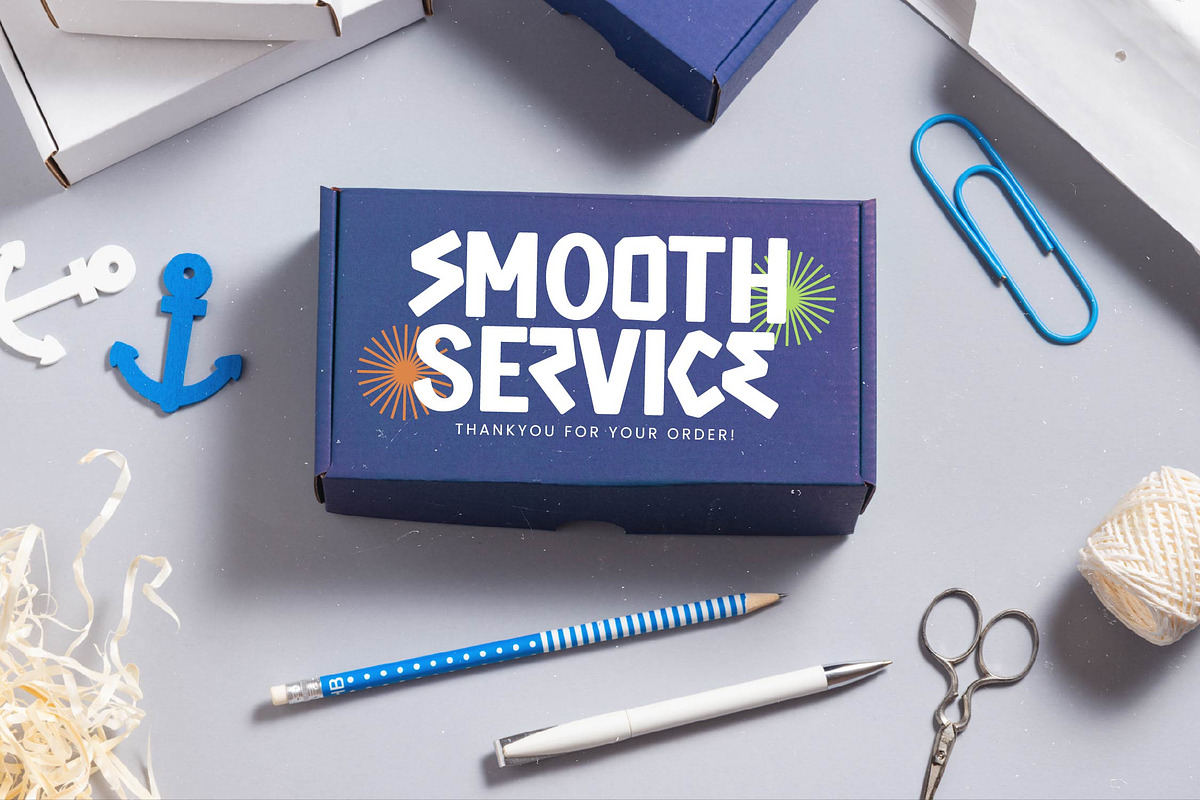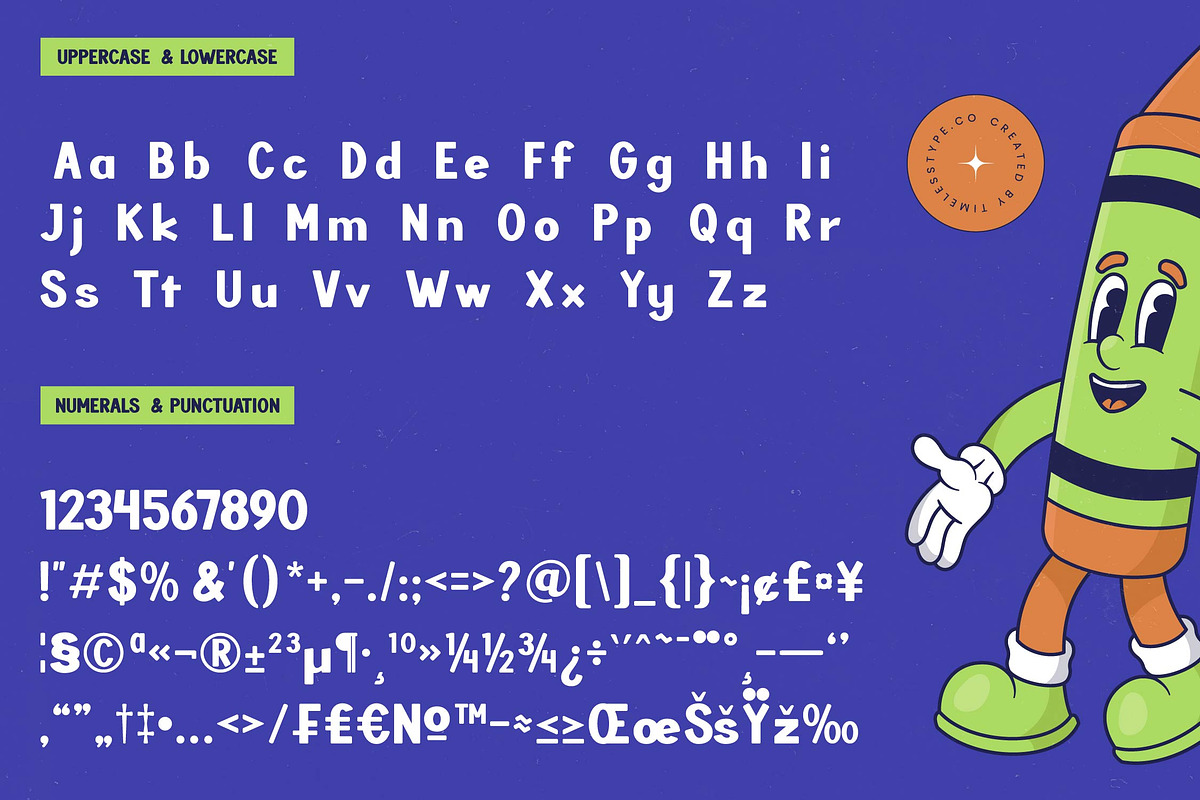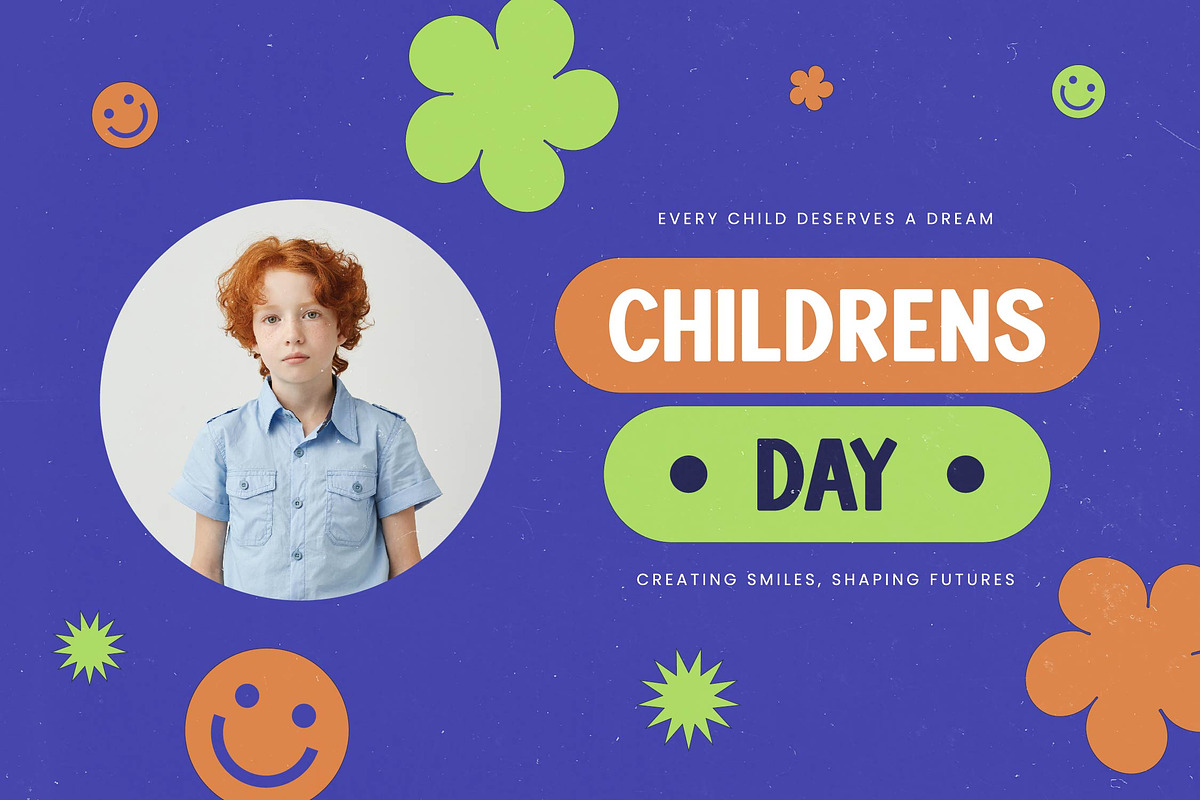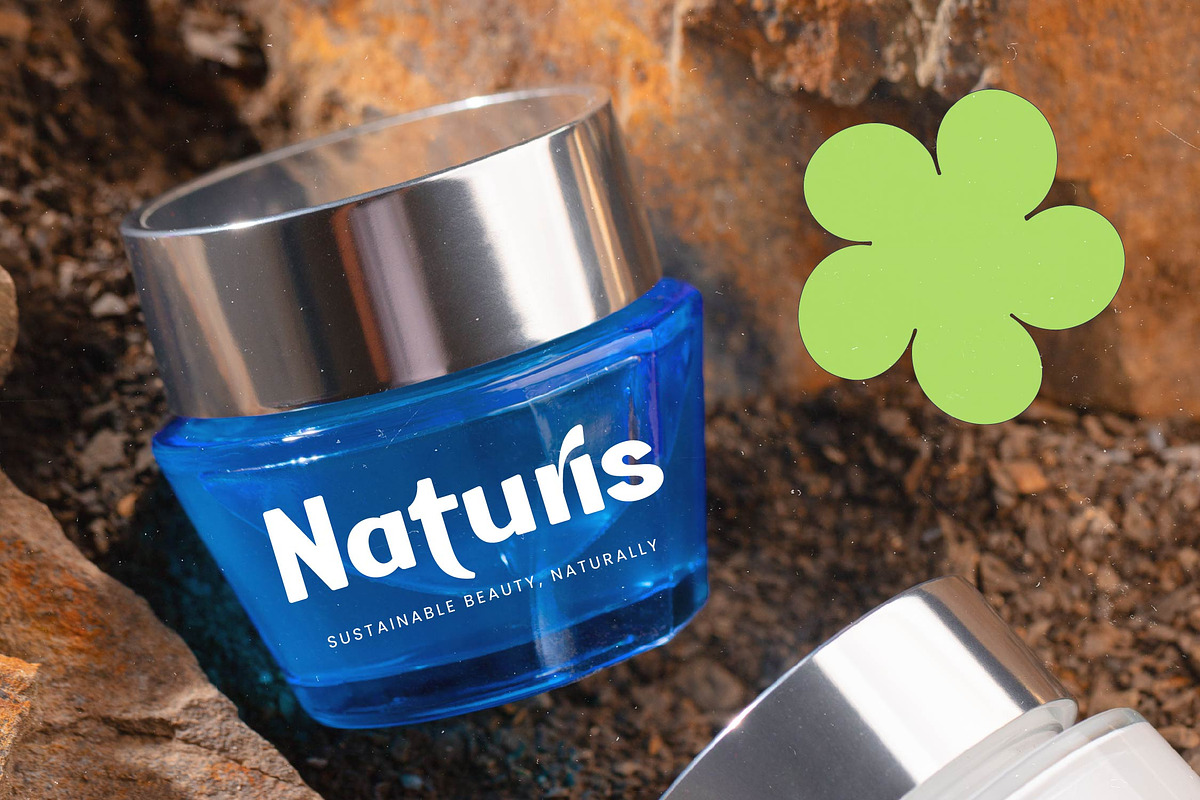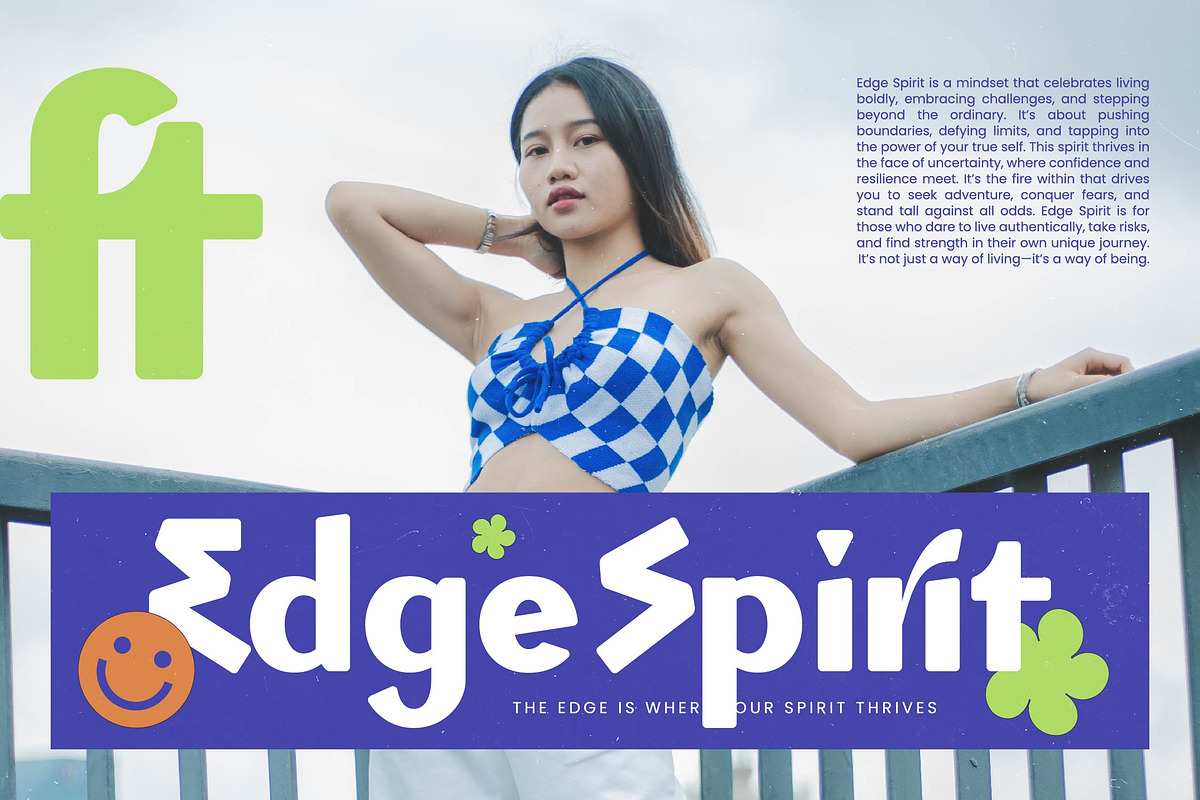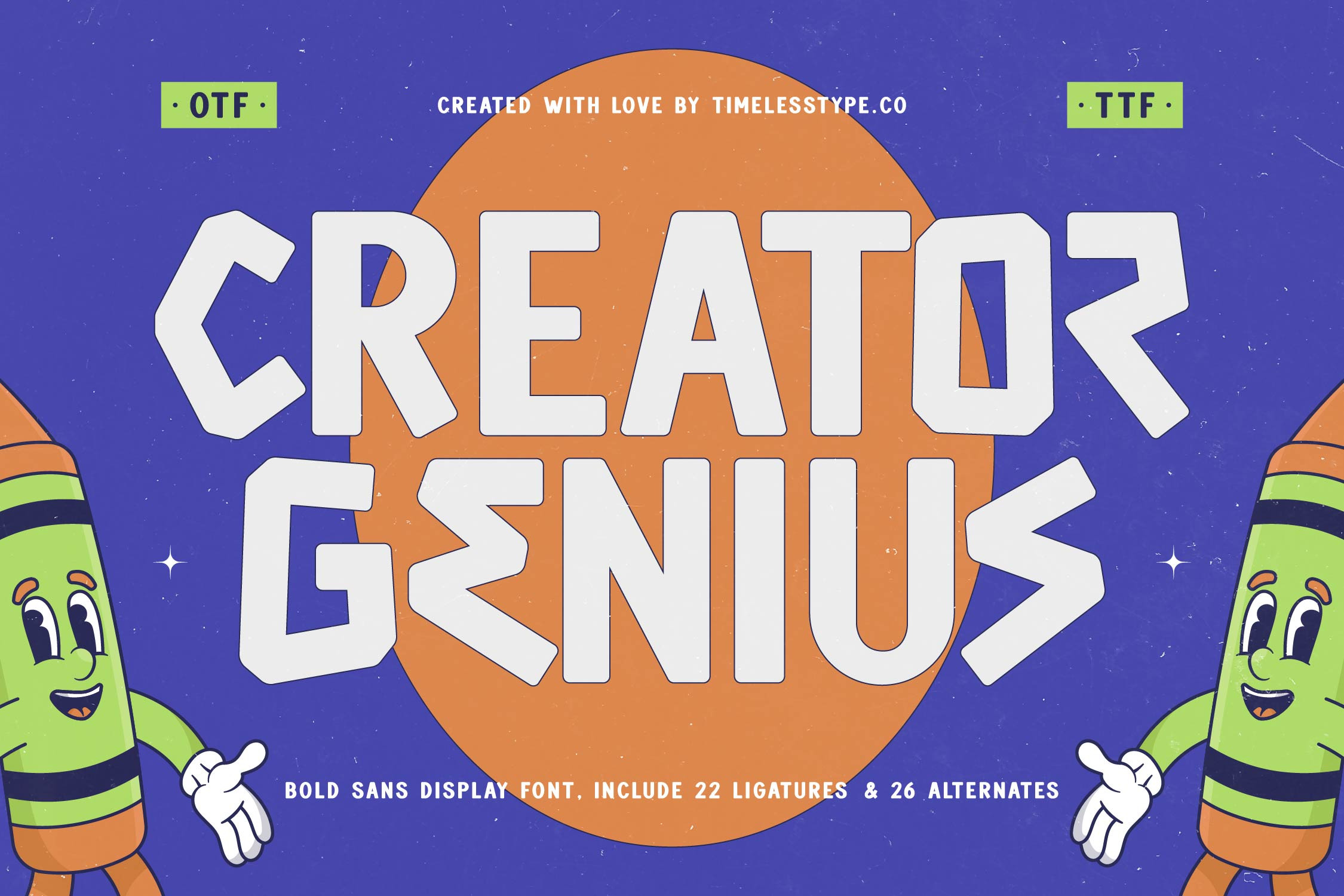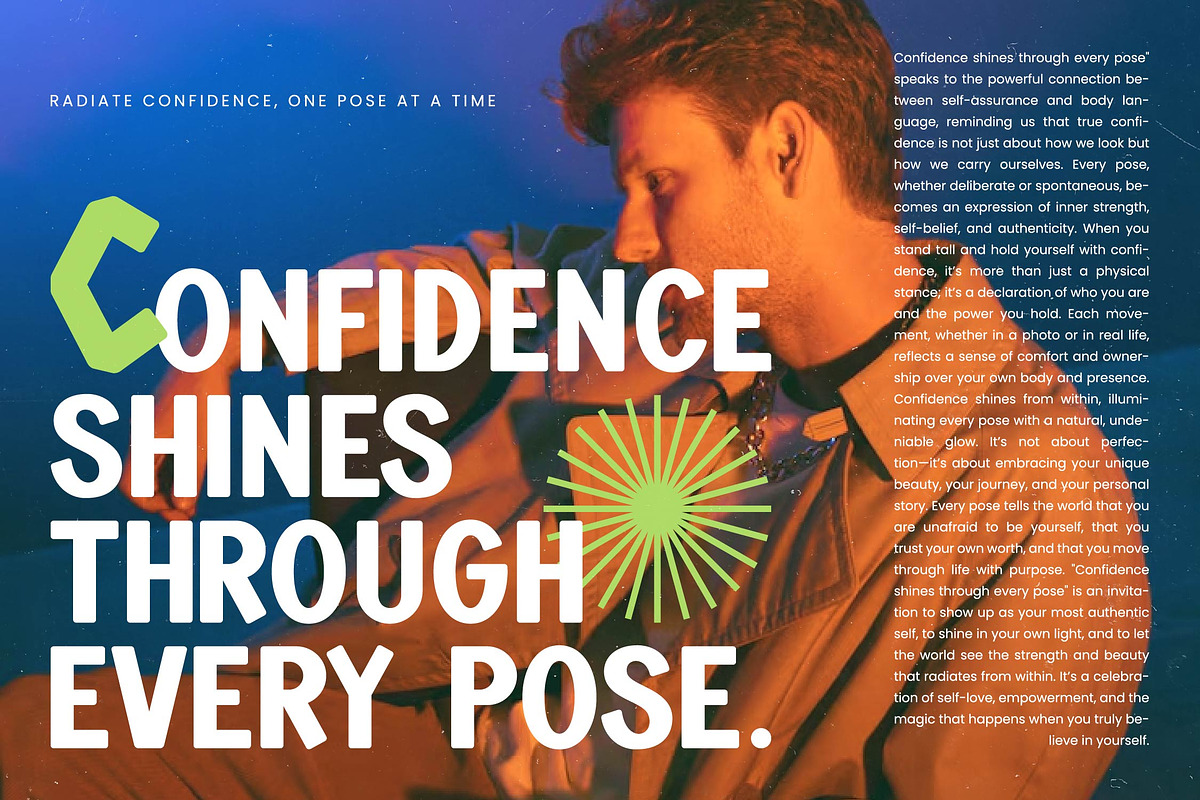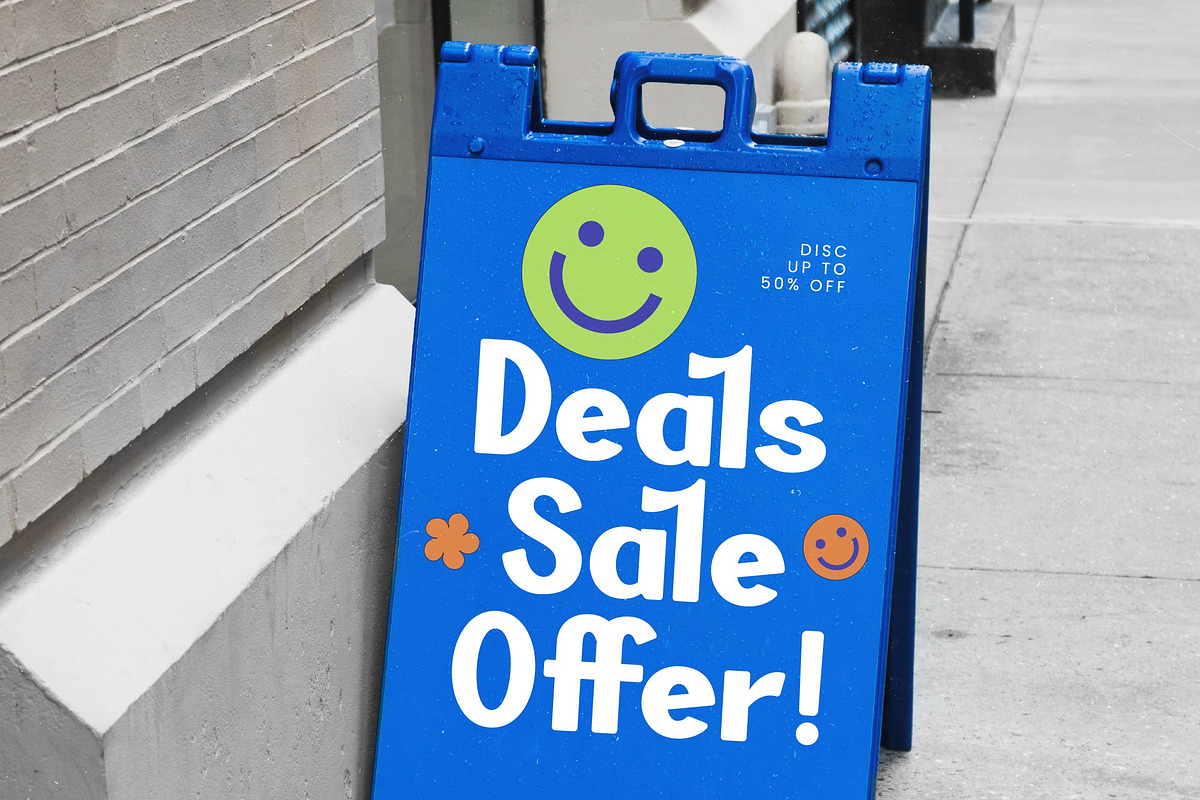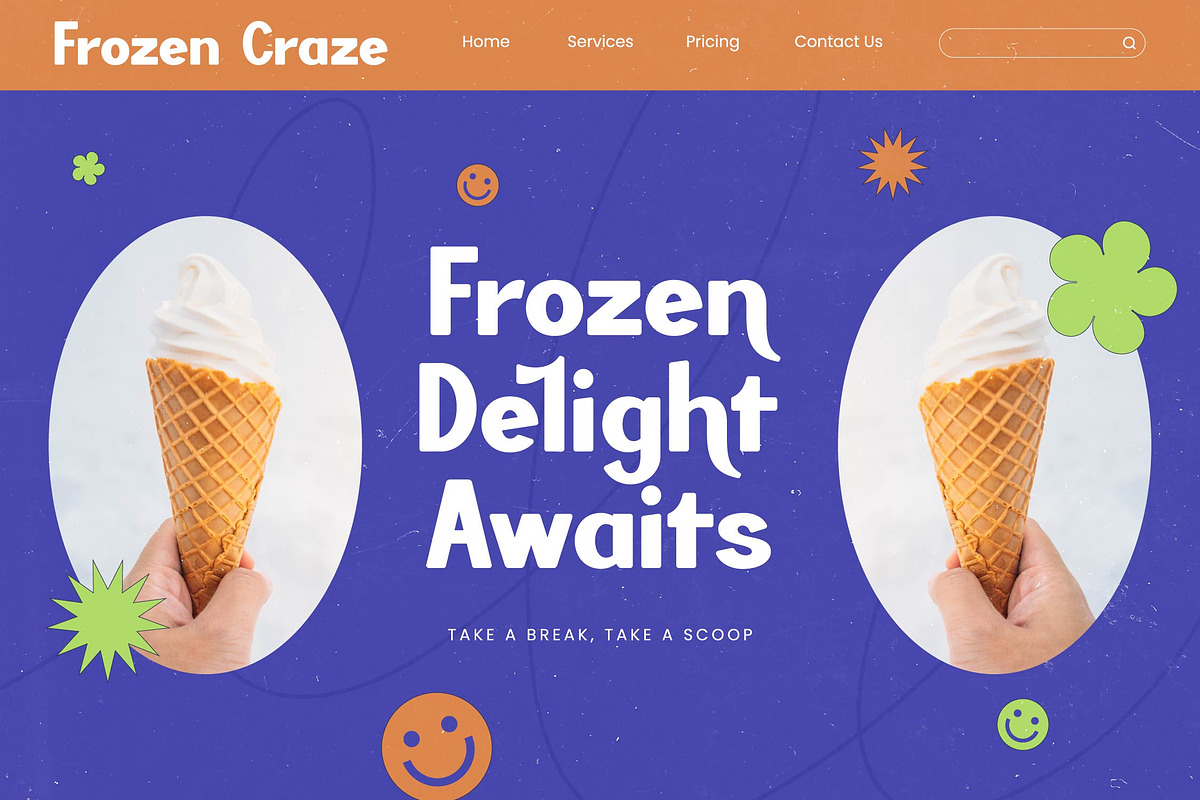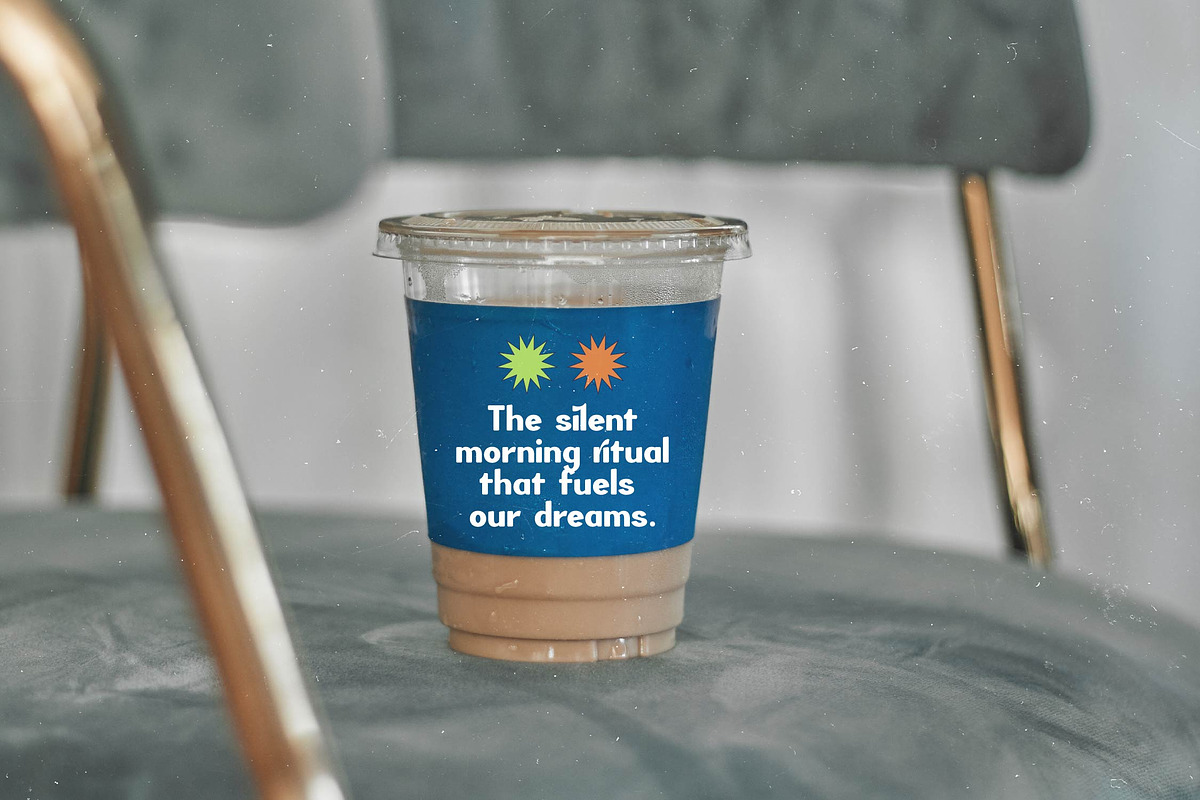
Creator Genius Bold Display Font
Creator Genius is a vibrant explosion of playful energy and bold creativity, designed to turn every headline into a statement of pure joy. This typeface is the ultimate tool for visionary designers looking to inject a sense of wonder and unbridled imagination into their visual storytelling.
Drawing inspiration from the golden age of rubber-hose animation and the nostalgic world of childhood sketches, this font captures the essence of a hand-drawn masterpiece. It channels the spirit of 90s schoolroom creativity while offering a fresh perspective for contemporary digital environments that require a touch of whimsy.
The personality of this typeface commands attention with a modern serif display sensibility wrapped in a chunky sans-serif body, delivering a luxury typography feel that remains approachable. It provides a unique high-contrast serif alternative for those seeking an editorial font with a massive branding impact that refuses to be ignored by the audience.
By tapping into the current modern serif trend while maintaining a distinct geometric edge, it fits perfectly within the landscape of current editorial display fonts. This is character-driven typography at its finest, meeting the market demand for bold, expressive shapes that tell a story beyond the words themselves on the page.
Ideal for high-energy logo design and vibrant branding identities, this font shines in editorial layouts that require a touch of vintage flair. Whether you are working on toy packaging, a fun-focused wedding invitation, or avant-garde fashion branding, it delivers versatility and punch for any creative endeavor.
The package is technically robust, featuring a comprehensive set of ligatures and alternates to provide endless customization options for your text. It also includes full support for multilingual projects and a wide array of international characters to ensure your creative message resonates globally without limitations.
- Ligature 22 Alternate 26